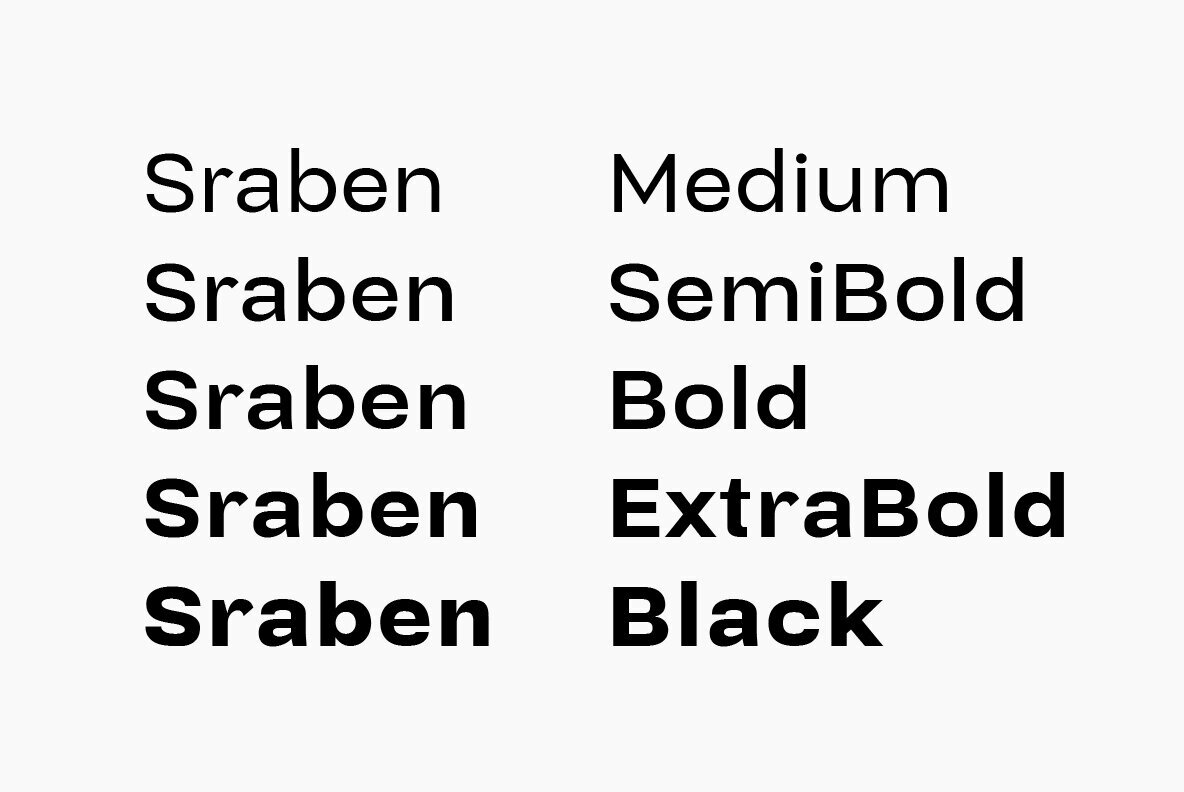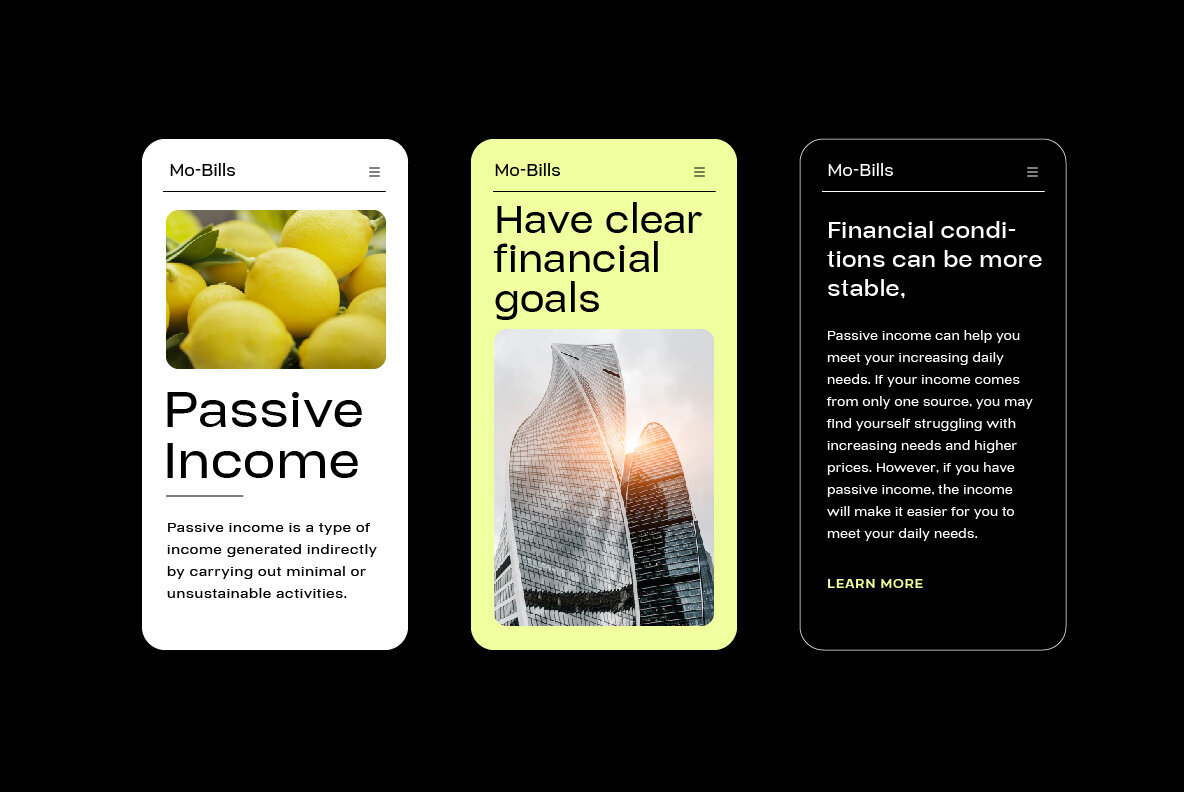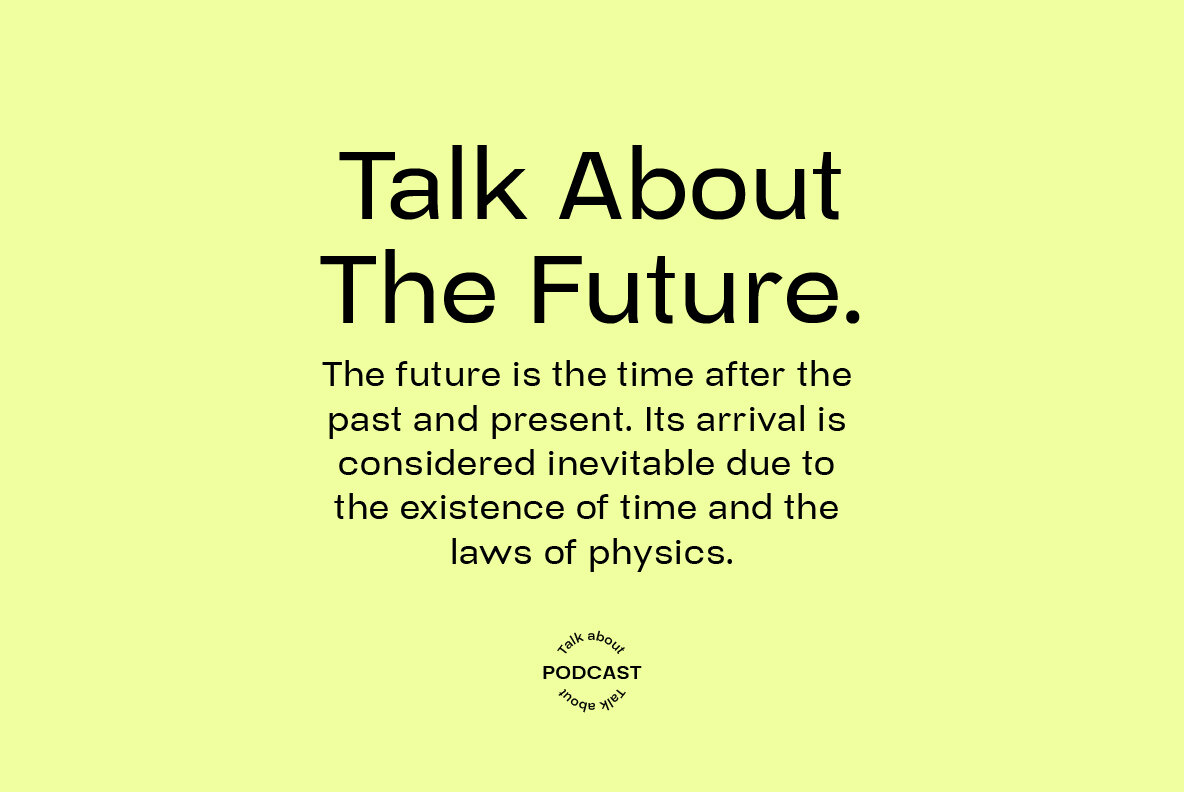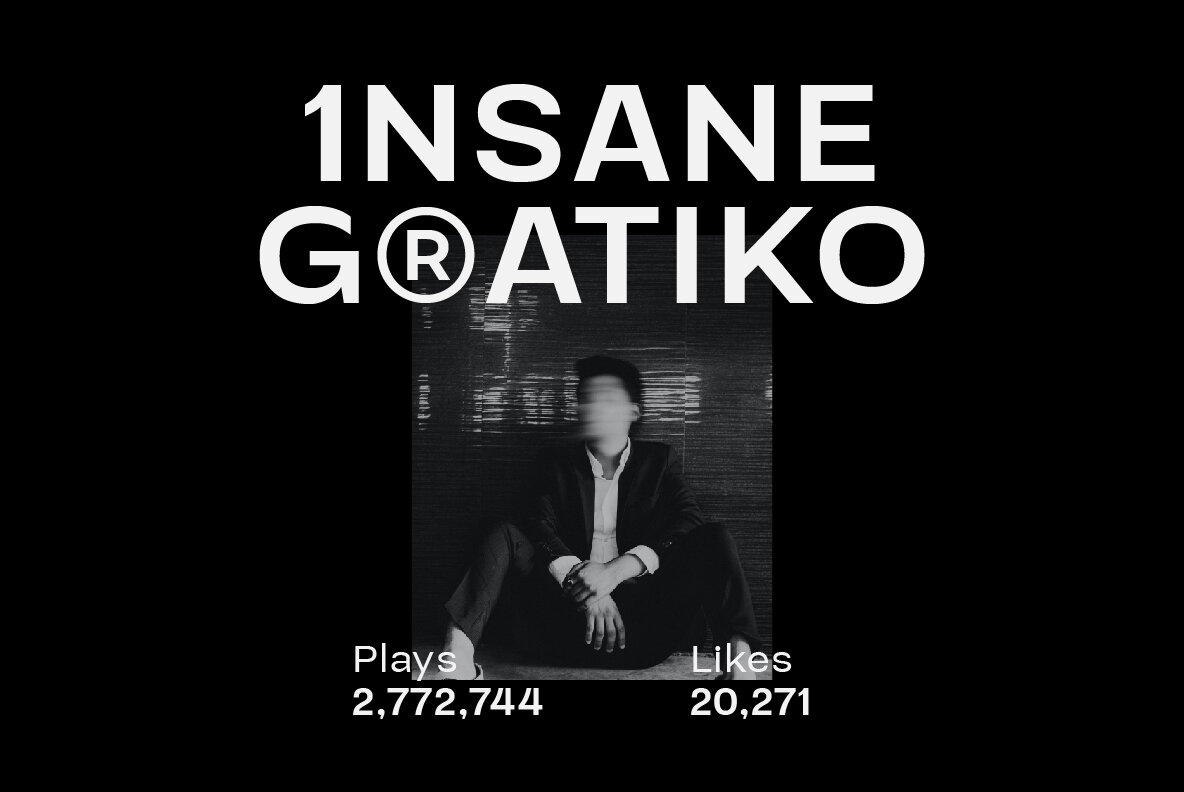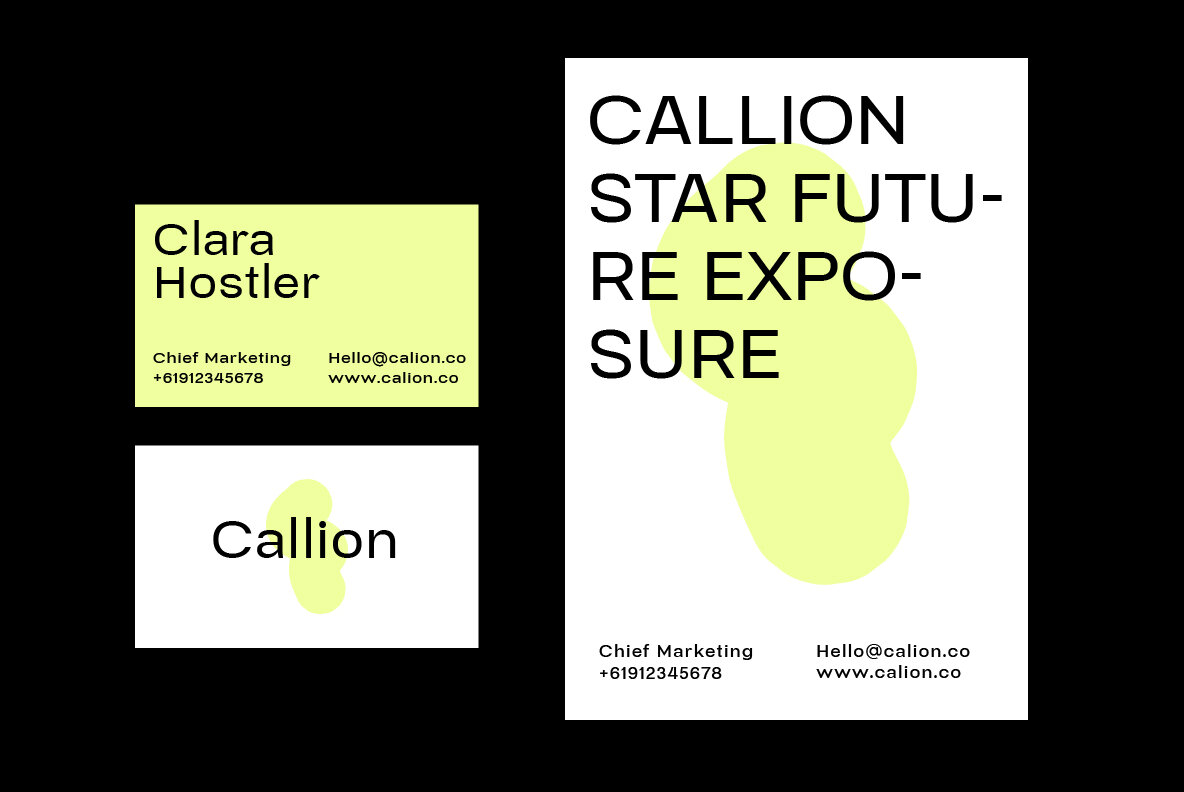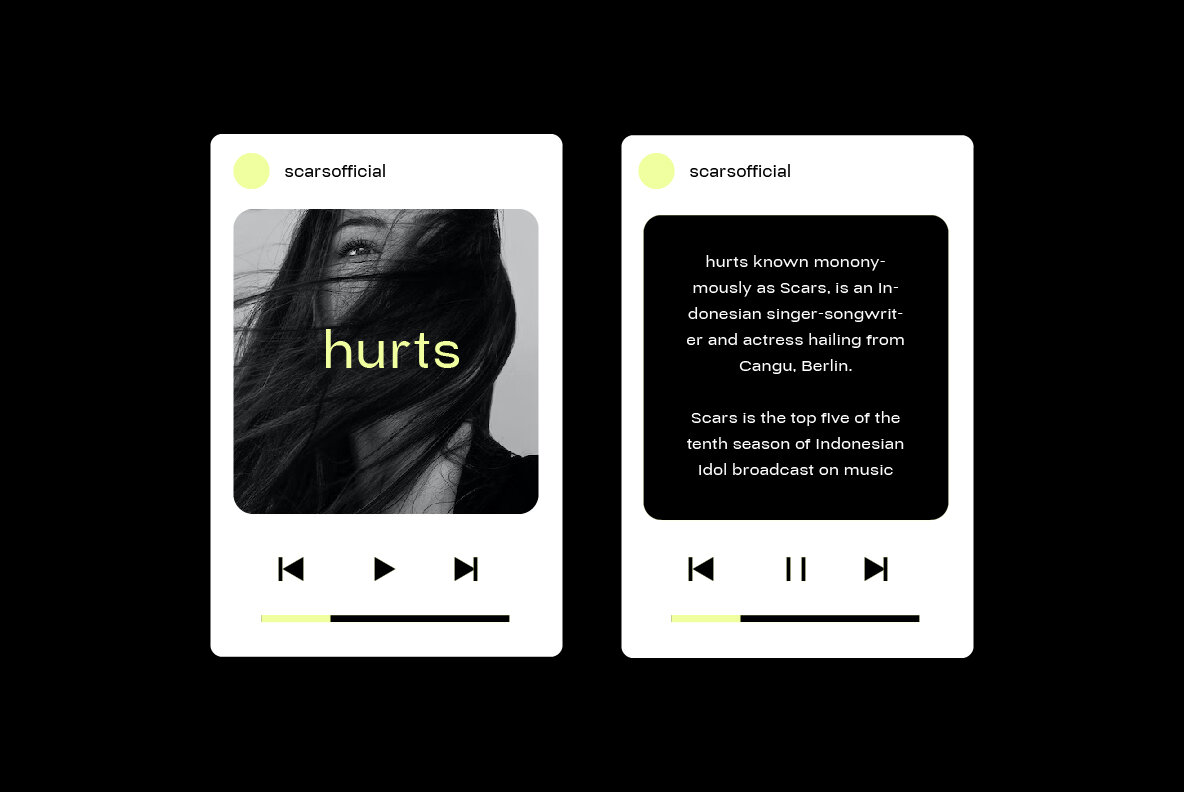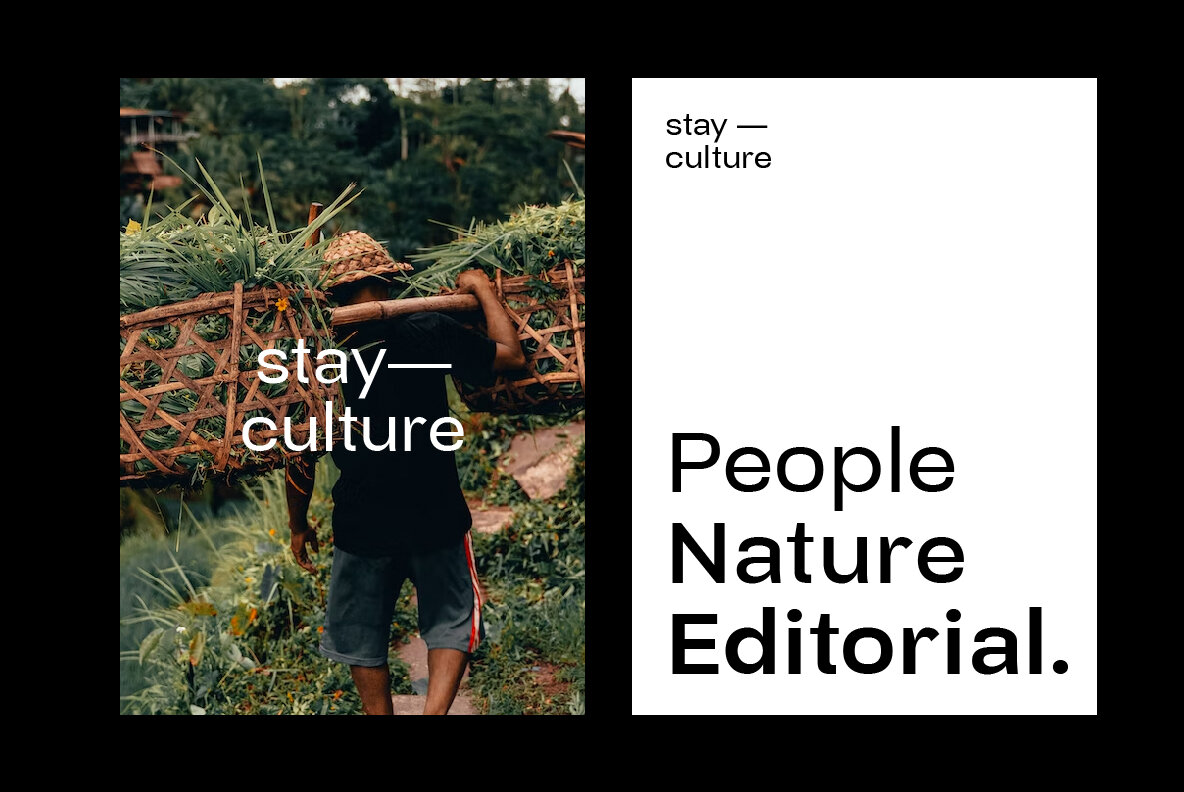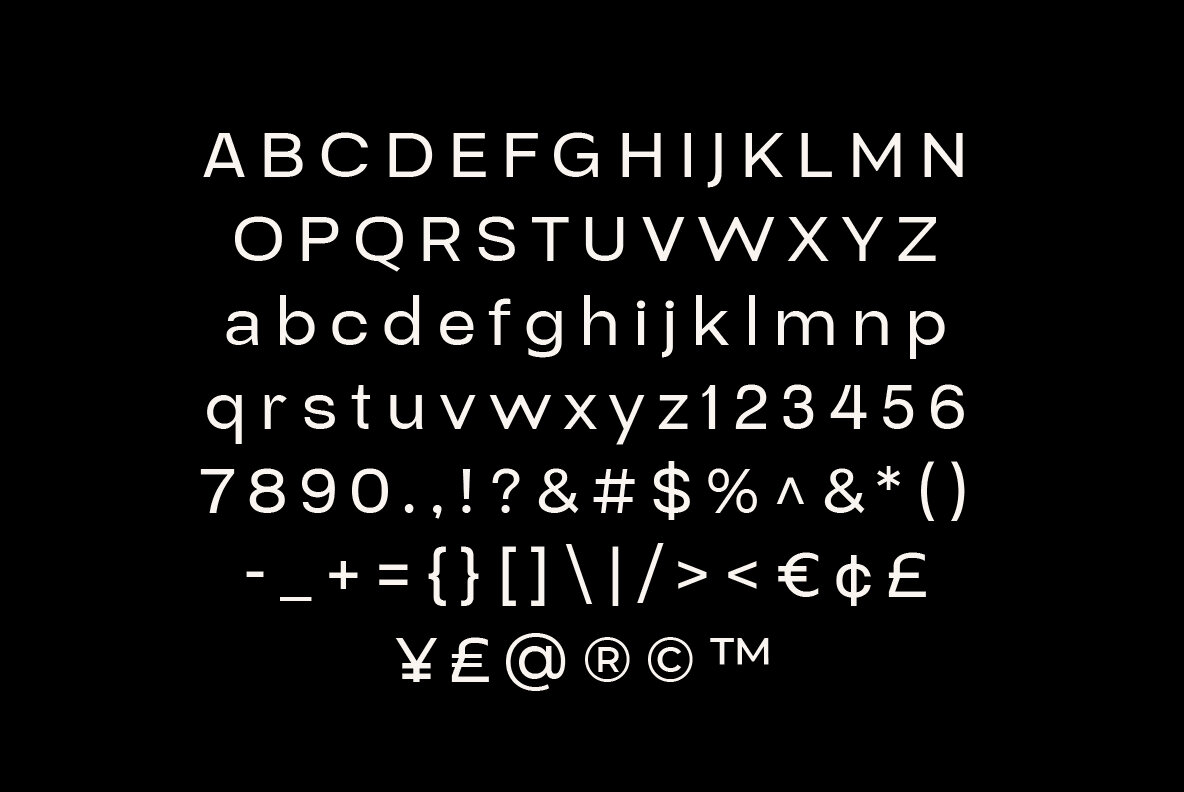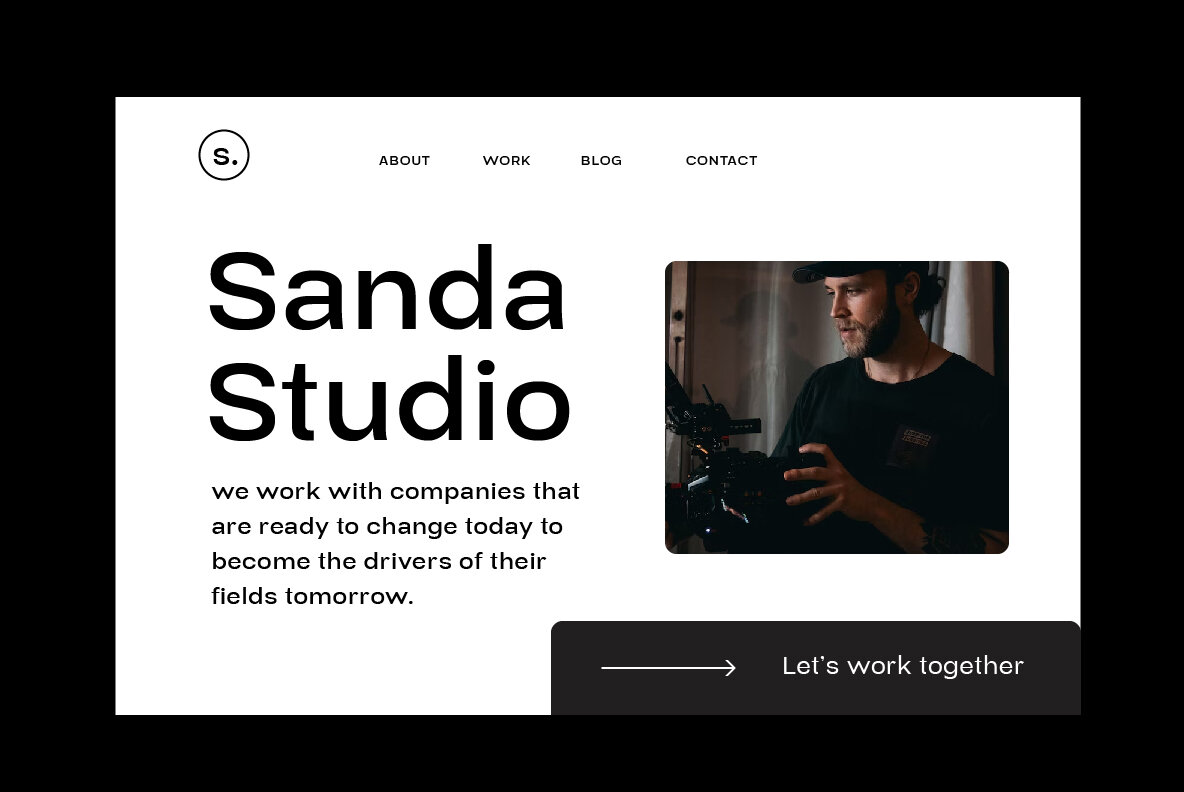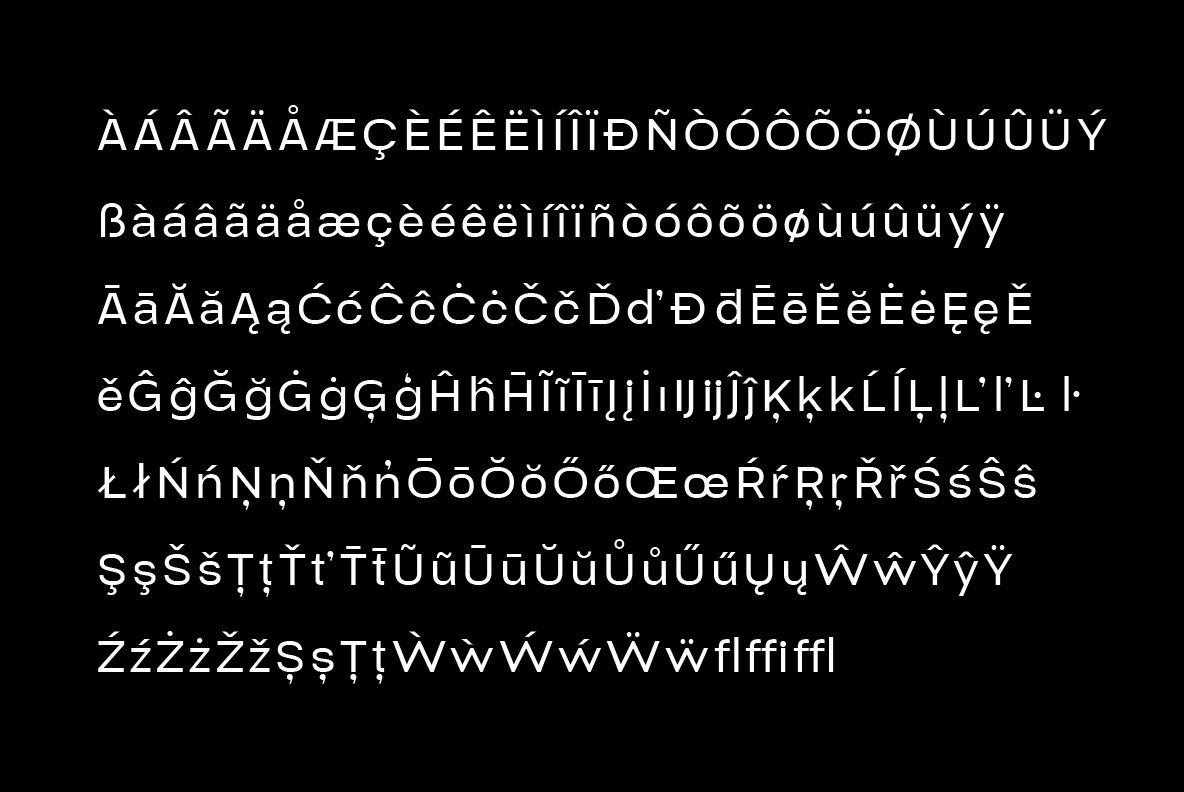
Sraben Grotesk Font
Sraben Grotesk is a beautiful, versatile font that's perfect for all kinds of projects! It features balanced and harmonious proportions, plus bold variations to make certain elements stand out. This font offers classic characteristics inspired by Grotesk typography, making it an ideal choice for posters, flyers, brochures, brand identity designs and magazine layouts. Whether you're looking to create something new or bring a creative twist to an existing project, Sraben Grotesk can be the perfect choice. Let its clean aesthetic fuel your imagination and inspire you as you achieve your design goals!